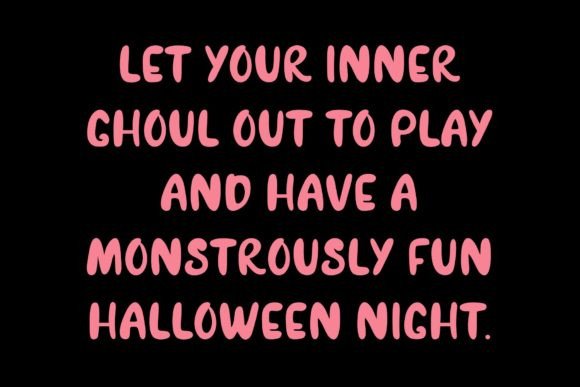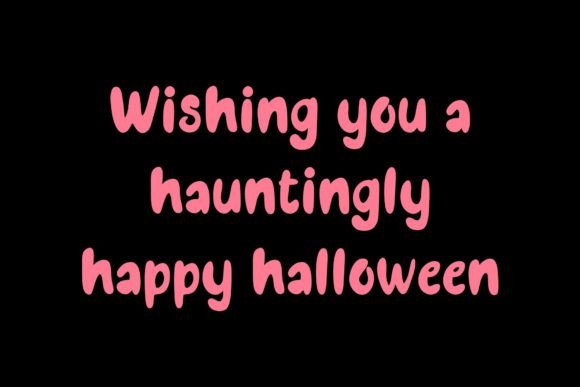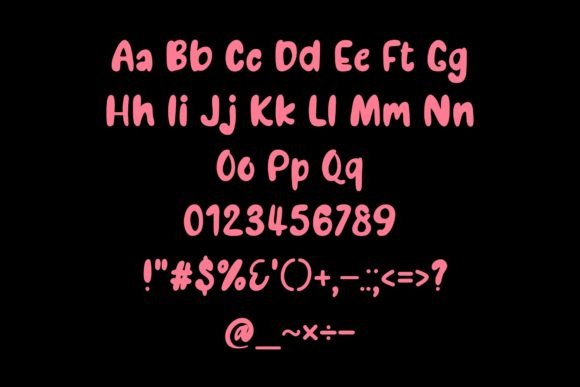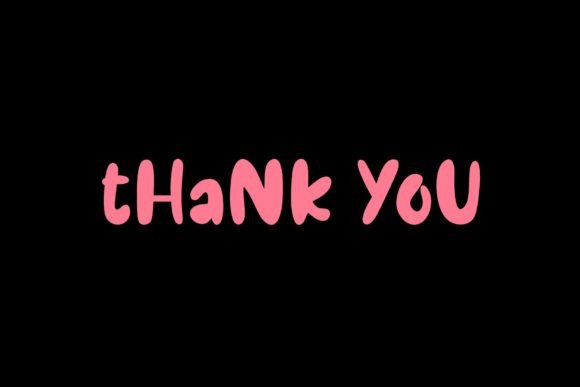
Get Ready to Cuddle Up with Cliddle Font!
As a designer, I’ve had my fair share of late nights scrolling through font libraries, searching for that perfect match for my project. But one Halloween design project still haunts me (pun intended!). My client wanted a font that was both adorable and spooky, and I was determined to deliver. That’s when I stumbled upon Cliddle Font, and let me tell you, it’s been a game-changer!
The Cutest and Spookiest Font in Town
Cliddle Font is a display font that’s perfect for adding a touch of whimsy to your Halloween designs. With its charming letterforms and playful strokes, this font is sure to bring a smile to your face and a spooky vibe to your projects. Whether you’re designing invitations, decorations, or social media graphics, Cliddle Font is the perfect choice.
- ✨ Unique and playful letterforms that add a touch of personality to any design
- ✅ Easy to read, even in smaller sizes
- 🎃 Perfect for Halloween-themed designs, but also versatile enough for other projects
While Cliddle Font is an amazing addition to any design project, there are a few things to keep in mind:
- 🤔 Some characters may not work well in very small sizes, so be sure to test it out before finalizing your design
- ⚠️ Limited language support, so double-check the character set before using it for non-English text
- Experiment with OpenType features, such as glyphs and stylistic alternates, to add more personality to your text
The Designer Inspiration Behind Cliddle Font
Cliddle Font was designed with the goal of creating a unique and playful font that’s perfect for Halloween designs. The designer wanted to capture the spirit of the holiday, while also making it versatile enough for other projects. With its charming letterforms and playful strokes, Cliddle Font is sure to bring a smile to your face and a spooky vibe to your designs.
Q: What type of designs is Cliddle Font best suited for?
A: Cliddle Font is perfect for Halloween-themed designs, but it’s also versatile enough for other projects, such as invitations, decorations, and social media graphics.